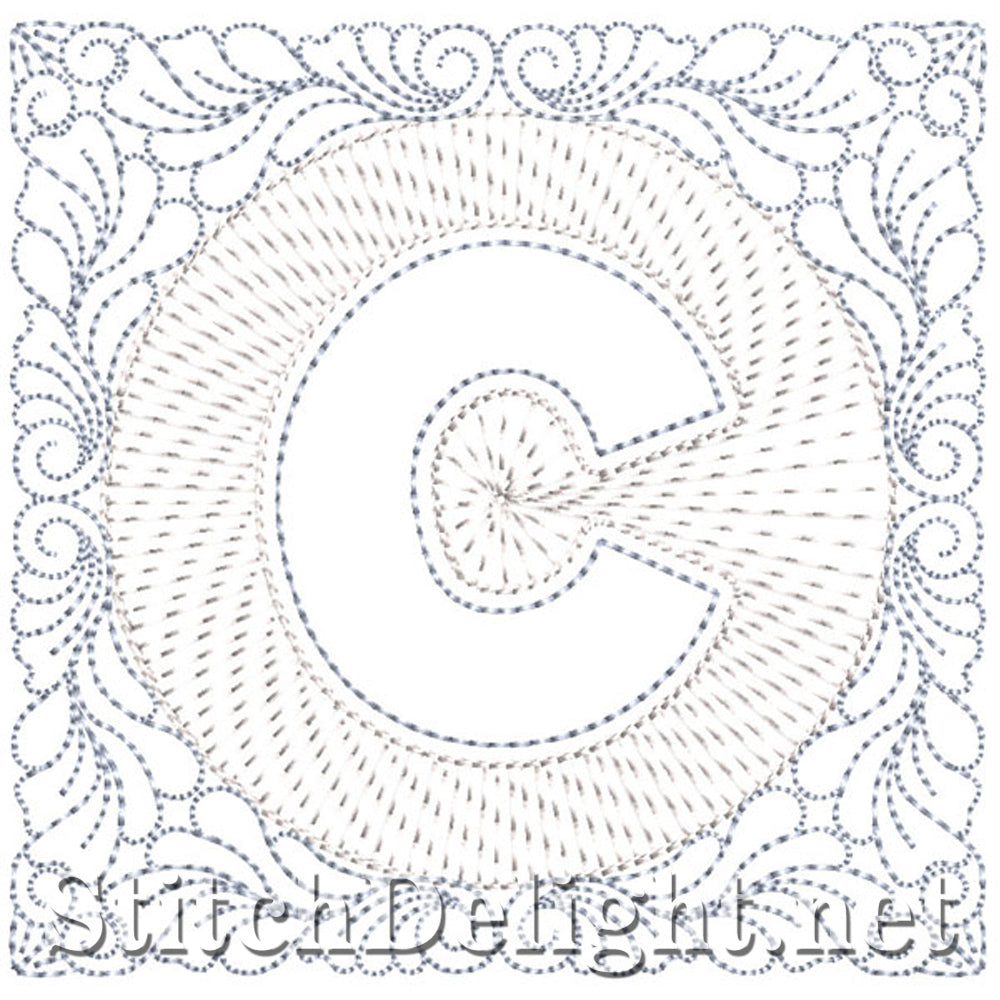
SDS1185 Quilters Block Font C
This beautiful font looks stunning when stitched on a sandwich of cut away, batting and fabric - stretch fabric gives a stunning high loft - spell out a name or make a alphabet quilt - These are done in the 4x4 hoop (you can enlarge at will) Block size is 3.74x3.74" and stitch count more or less 6600 stitches